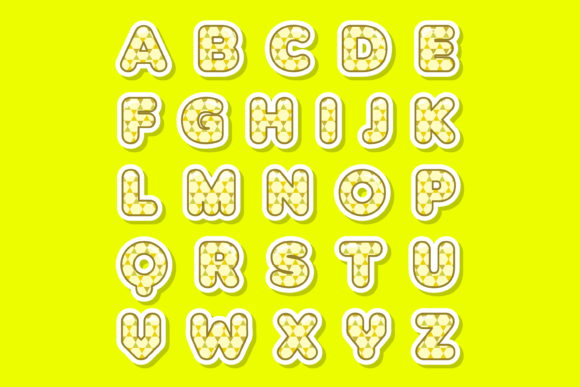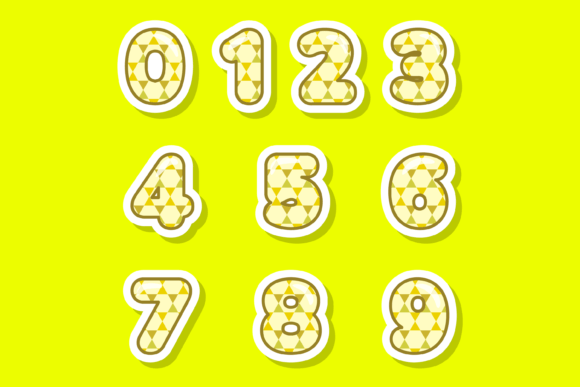
Introduction to Hex Star Font
Have you ever been working on a creative project, pouring your heart and soul into it, only to realize that it’s missing that one special touch? For designers, finding the perfect font can make all the difference between a good design and a great one. This is where the Hex Star Font comes in – a game-changing color font that adds a touch of magic to any project.
With its vibrant colors and unique design, the Hex Star Font is the perfect addition to any design resource. Whether you’re working on a custom design, a DIY craft, or just need a little inspiration for your next creative project, this font is sure to impress. Plus, with its compatibility with popular design software like PhotoShop, Illustrator, and Inkscape, you can easily integrate it into your workflow.
Key Features of Hex Star Font
- High-quality design resource suitable for creative projects, offering a unique and modern aesthetic.
- Transparent background option, allowing for seamless integration with any design or background.
- Includes a range of glyphs and characters, making it a versatile design resource for various creative projects.
- High-resolution design, suitable for use in print and digital applications, including logos, graphics, and more.
- Available in a range of sizes, from small to large, making it easy to customize for your specific design needs.
Honest Review: Hex Star Font
As a designer, I’m always on the lookout for unique and versatile fonts to elevate my creative projects. Recently, I had the chance to try out the Hex Star Font, and I’m excited to share my thoughts.
What works well: ✨ The Hex Star Font is incredibly versatile and can be used for a wide range of design projects, from logos to social media graphics. The font is also highly customizable, allowing you to adjust the size, color, and style to fit your needs.
One of the standout features of the Hex Star Font is its transparent background, making it easy to overlay on top of images or other design elements. This level of flexibility is a major plus for designers who need to create high-quality visual content quickly.
What doesn’t work well: ⚠️ While the Hex Star Font is generally easy to use, I did encounter some minor issues with font rendering on certain platforms. However, this was a rare occurrence and didn’t significantly impact my overall experience.
Overall impression: I’m really impressed with the Hex Star Font, and I think it’s a valuable addition to any designer’s toolkit. Its flexibility, customizability, and high quality make it a great resource for anyone working on creative projects.
Tips for Getting the Most Out of Hex Star Font
Use the Hex Star Font in combination with other design elements to create a cohesive and visually appealing design.
Experiment with different font sizes and styles to add depth and interest to your project.
The Hex Star Font is ideal for use in graphic design projects, such as logos, brochures, and business cards.
It can also be used in digital design projects, such as website headers and social media graphics.
To ensure the Hex Star Font is displayed correctly on various devices, it’s recommended to use the SVG file format, which is scalable and vector-based. This will allow the font to maintain its high-quality design, even when resized or viewed on different screen resolutions.